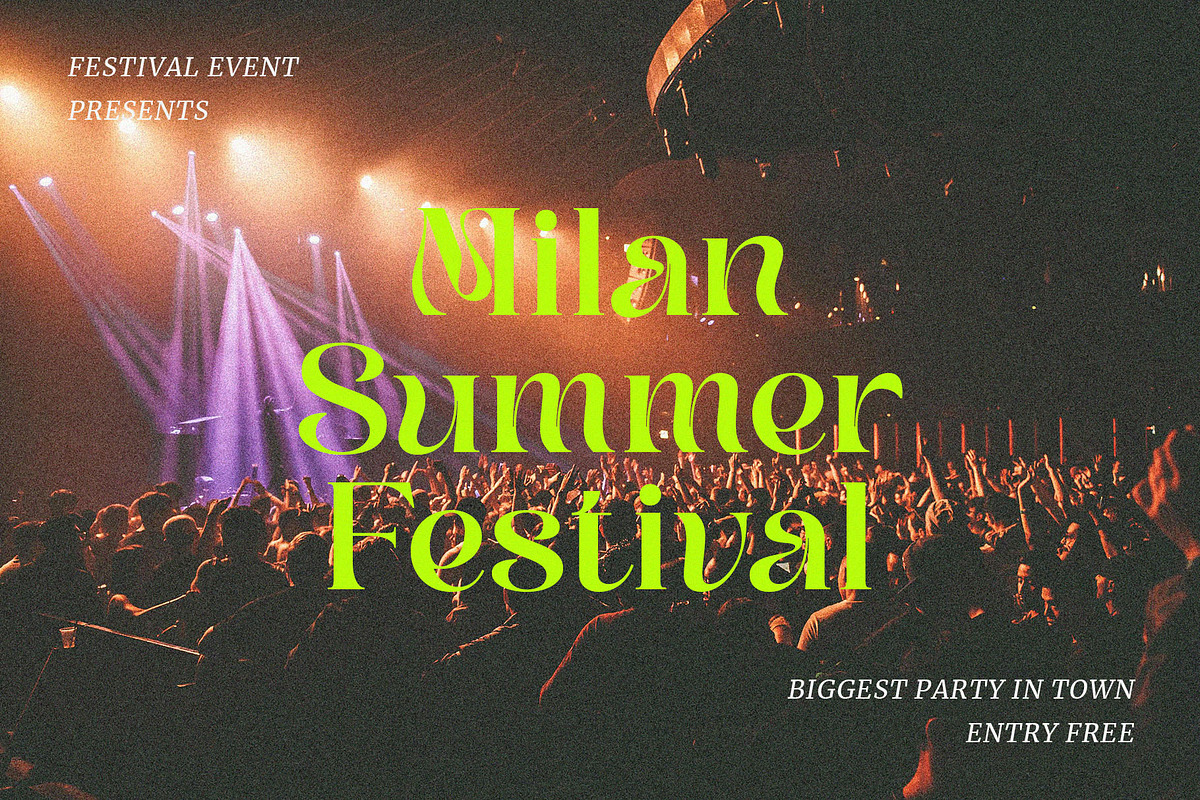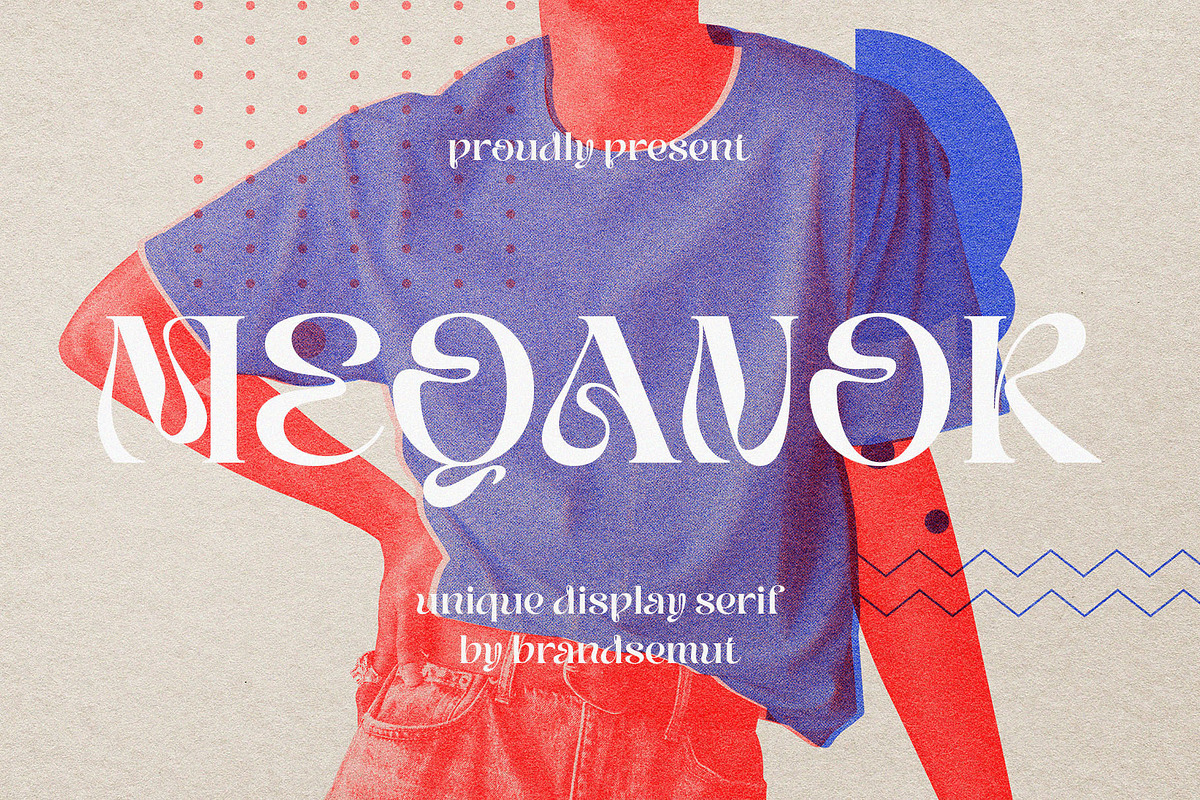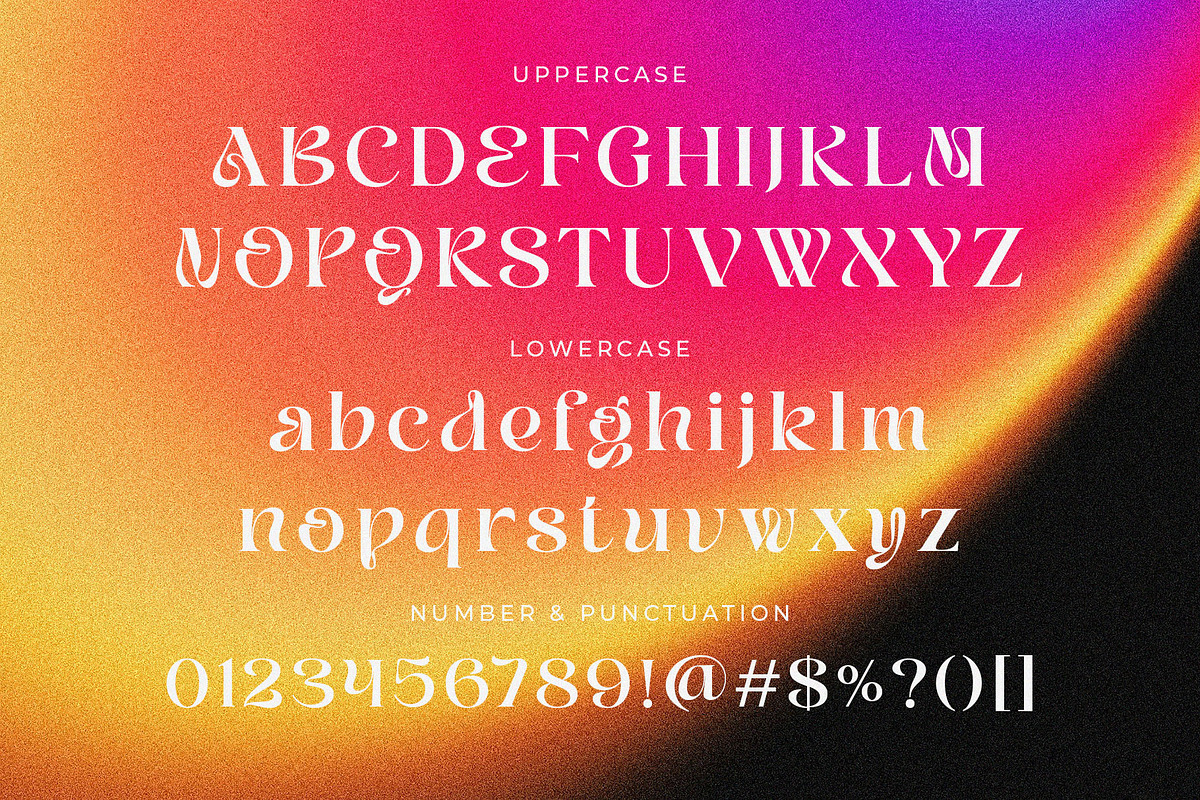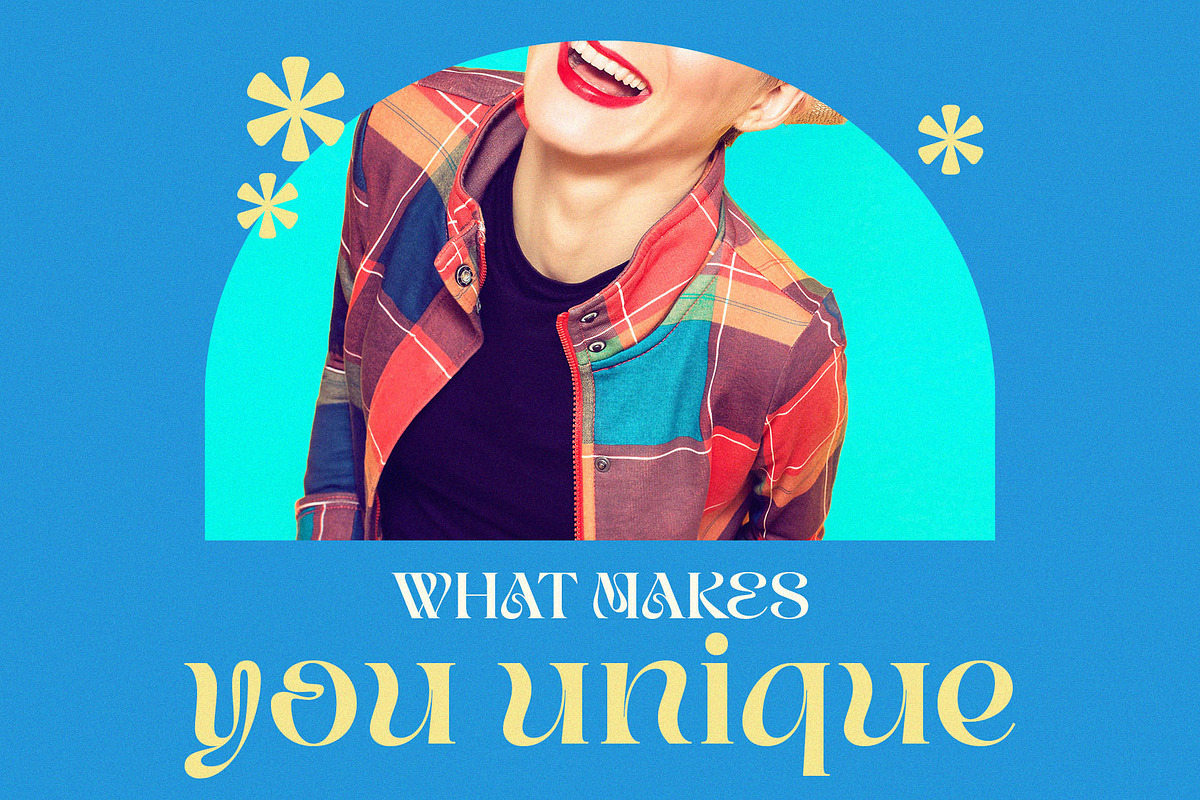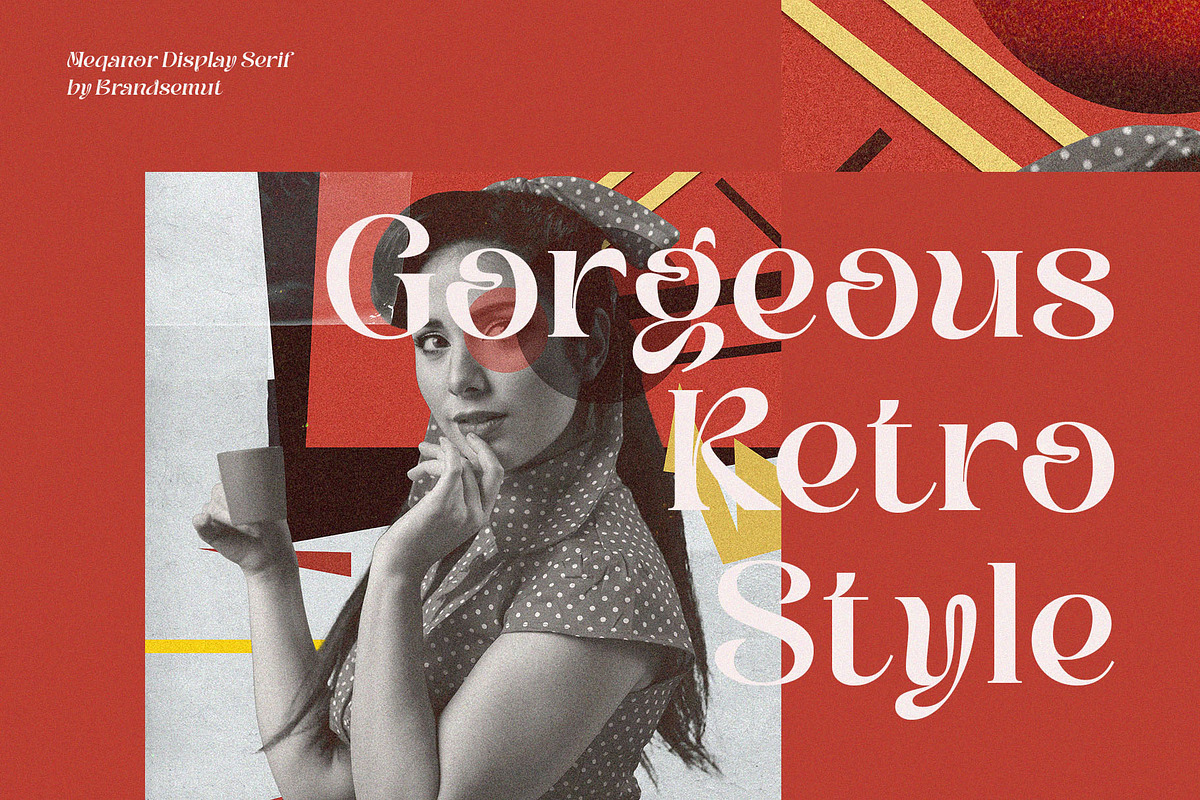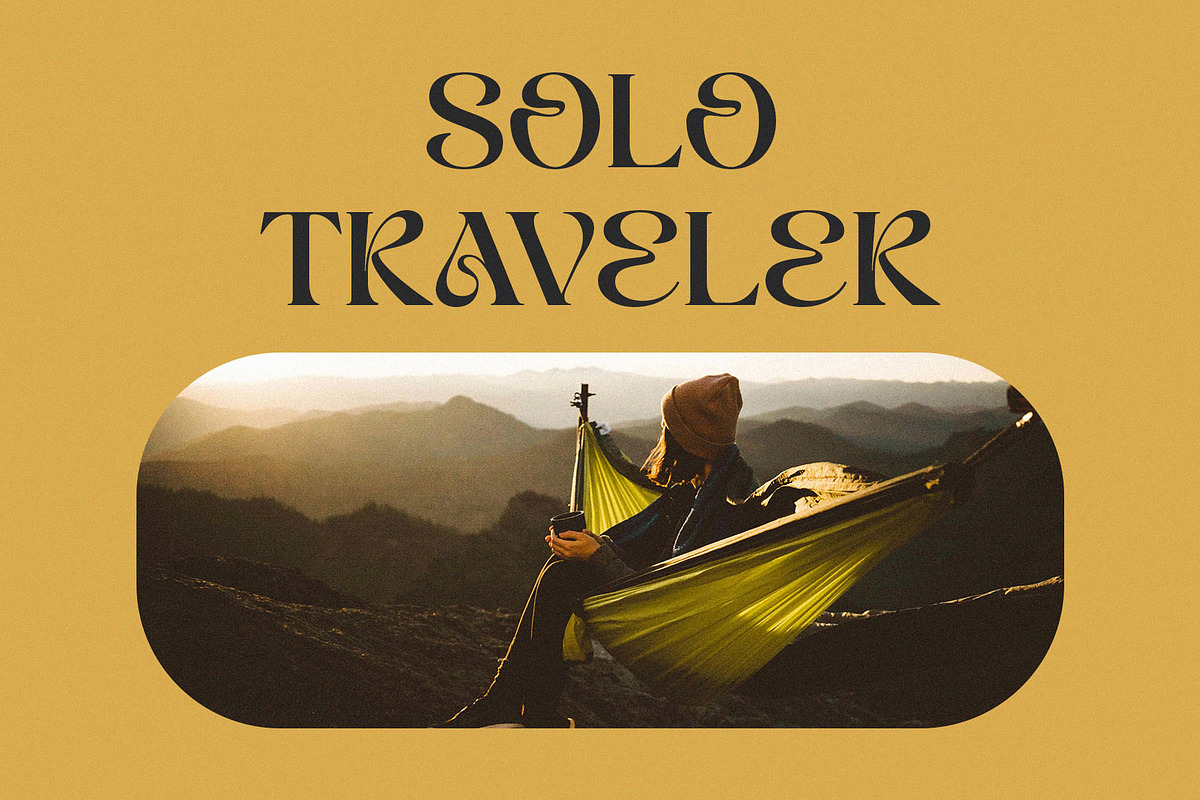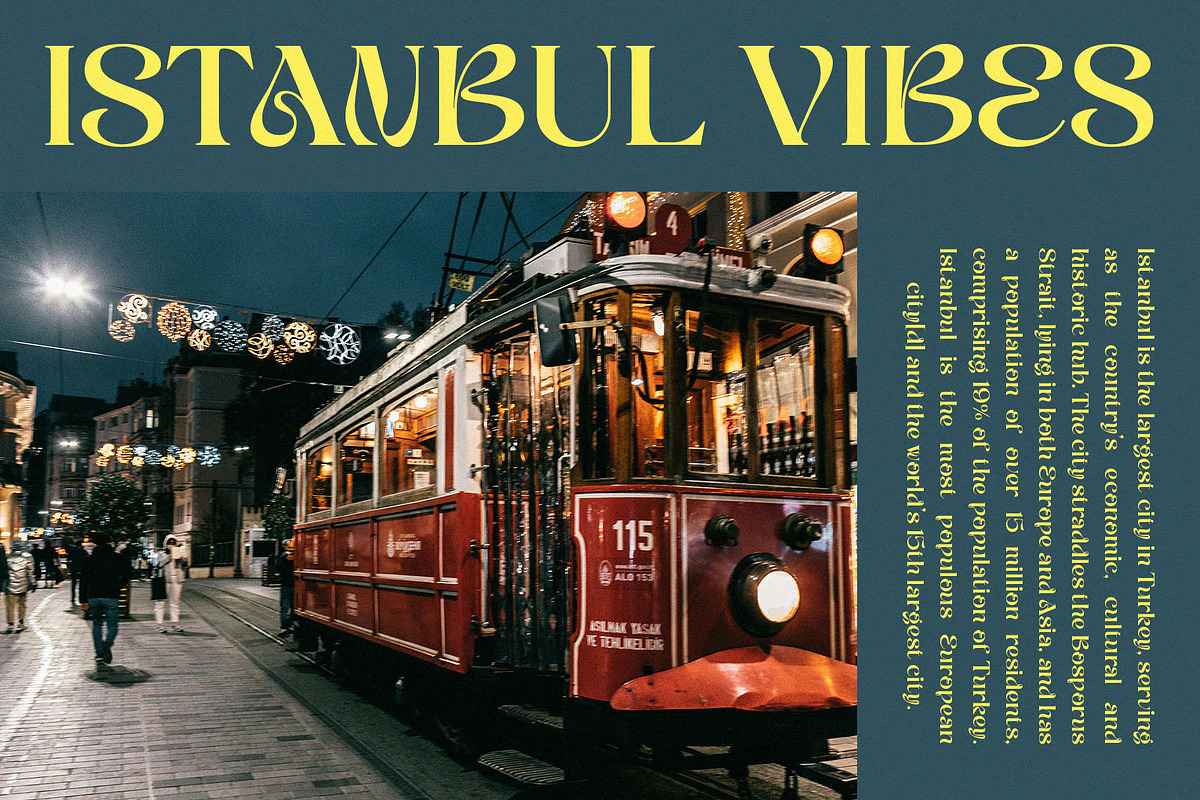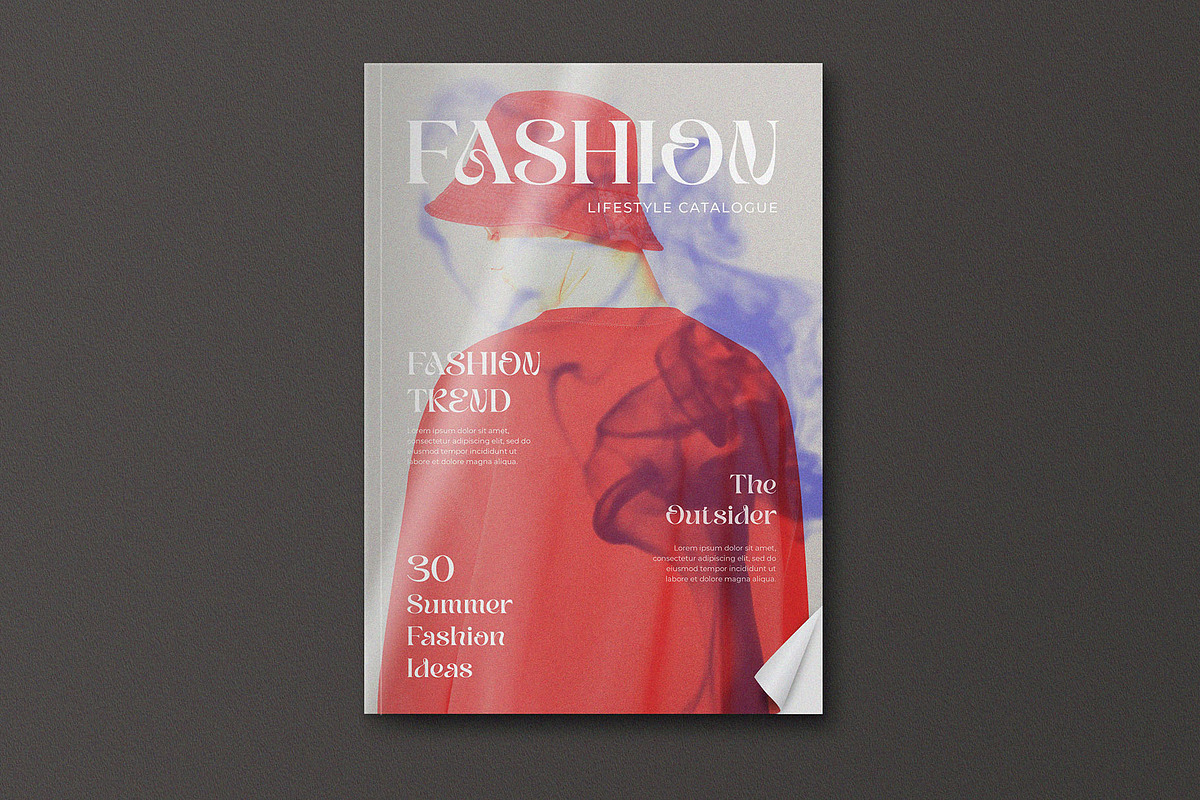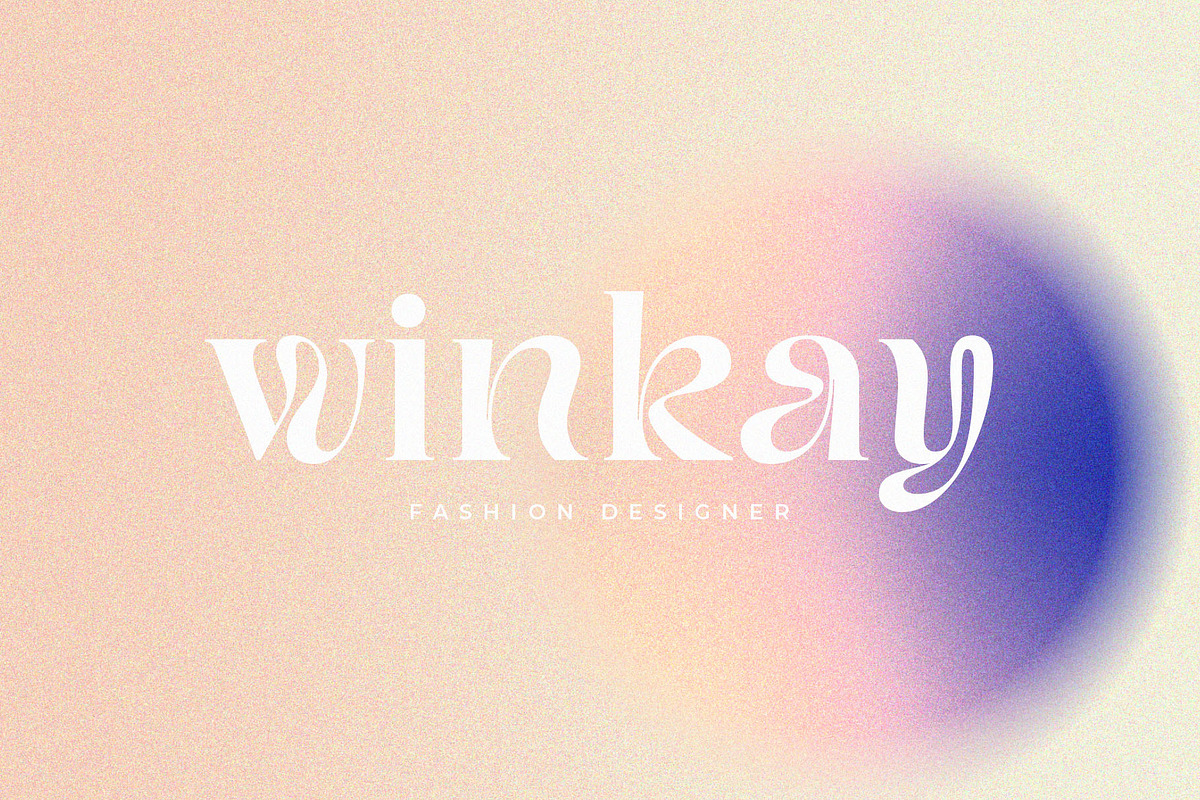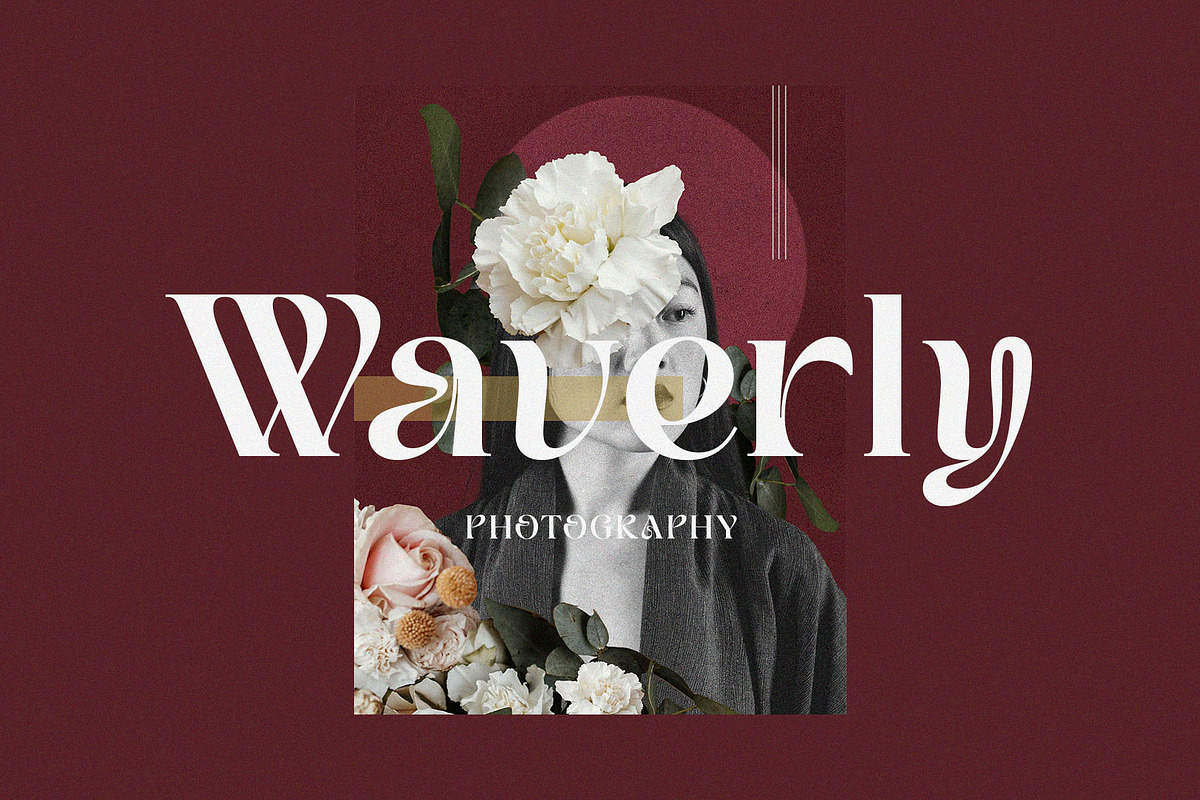
Meqanor - Unique Display Serif
Introducing Meqanor Unique Display Serif. Meqanor is a elegant, classy and modern display serif, best used as a display for headings, logos, branding, magazines, product packaging and invitations. Meqanor equipped with Ligature and many Alternates and come with clean lines and smooth curves give any project an extra touch of class.